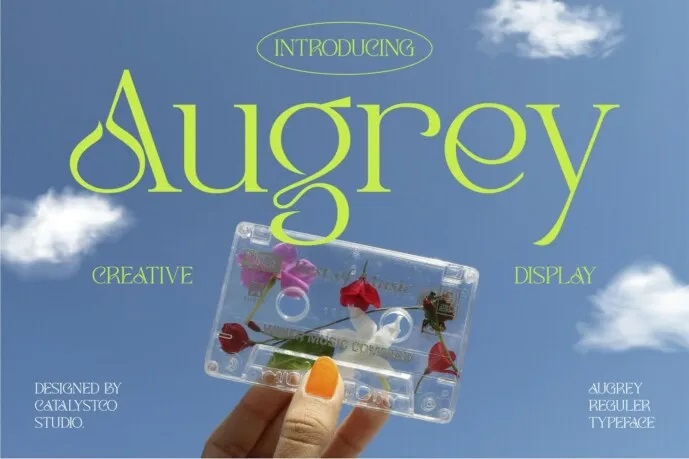
Augrey Font
Augrey font is ideal for creating quotes, texts, logotypes as well as the headers for magazines and many more. The free version of the keyboard includes all alphabets both small and capital and a few more signs.
Augrey Serif Font